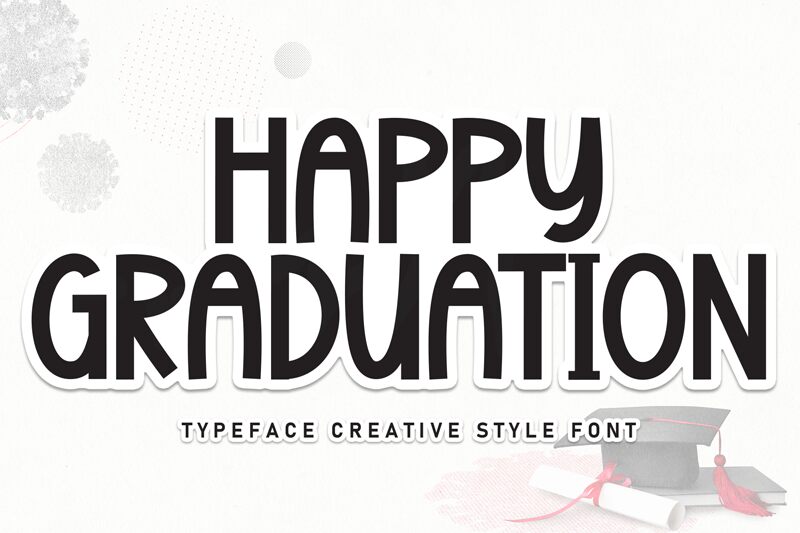
Happy Graduation
Happy Graduation font is a decorative free display font designed by Scratchones. The characters have a friendly and celebratory appearance which makes them suitable for festive and joyful occasions. The font features slanted letters and round edges, and it also comes with an additional illustration set of icons such as a graduation hat, stars, etc.
Use this beautiful typeface on your stationery projects like pimping notebook covers or decorating bookmarks for your website designs typography (headings), printables (invitations, posters), or apparel items. Other ideas include packaging & label design, social media banners, mugs or gift card decoration.